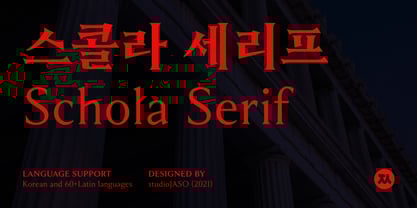
Schola Serif
por StudioJASO
La familia tipográfica Schola Serif fue diseñada por StudioJASO y publicada por StudioJASO. Schola Serif contiene 5 estilos y opciones de paquete familiar.
Schola Serif is a neo classic serif font that reinterpret the classic Latin style structure and expression in a modern and intriguing way.
Schola Serif looks sharply defined, giving clear-cut impression. It features sharp serif and details and presents its own distinctive character when used in title or sub headline or written with over 16pt.
Font with 5 different weights, over 60+ languages, 9 OpenType features.
It really does work in everything ranging from editorial design, graphic, and even integrated branding design.
Acerca de StudioJASO
Independent typeface designer active in South Korea. Interested and focused on the harmonization of Latin and Korean alphabet (or Hangul) fonts.His fonts have extensive language support covering Latin and Hangul. and Each font includes: 2,000 to 3,000 Hangul syllables, the smallest unit for expressing modern Korean; Latin Basic; punctuation; symbols for Korean codepage.